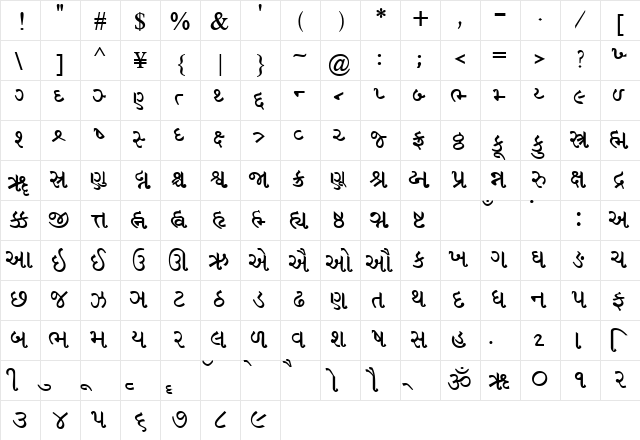
GujaratiRajkotSSK Bold Font Preview
GujaratiRajkotSSK Bold
Design Context for GujaratiRajkotSSK Typeface
GujaratiRajkotSSK takes a measured approach to typography — its balanced proportions and neutral character make it a reliable workhorse for both digital and print work. Its bold stroke weight gives it real presence on the page.